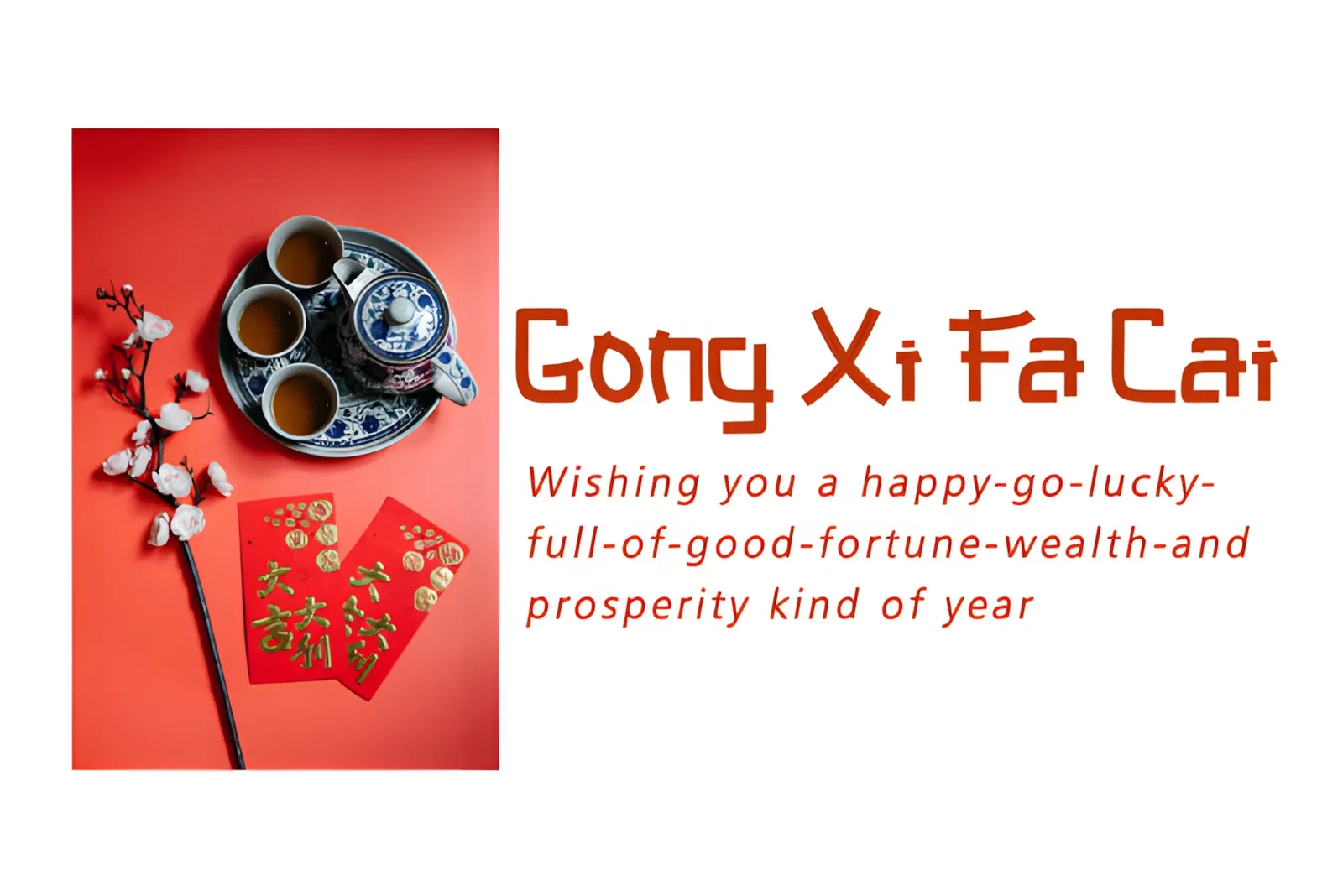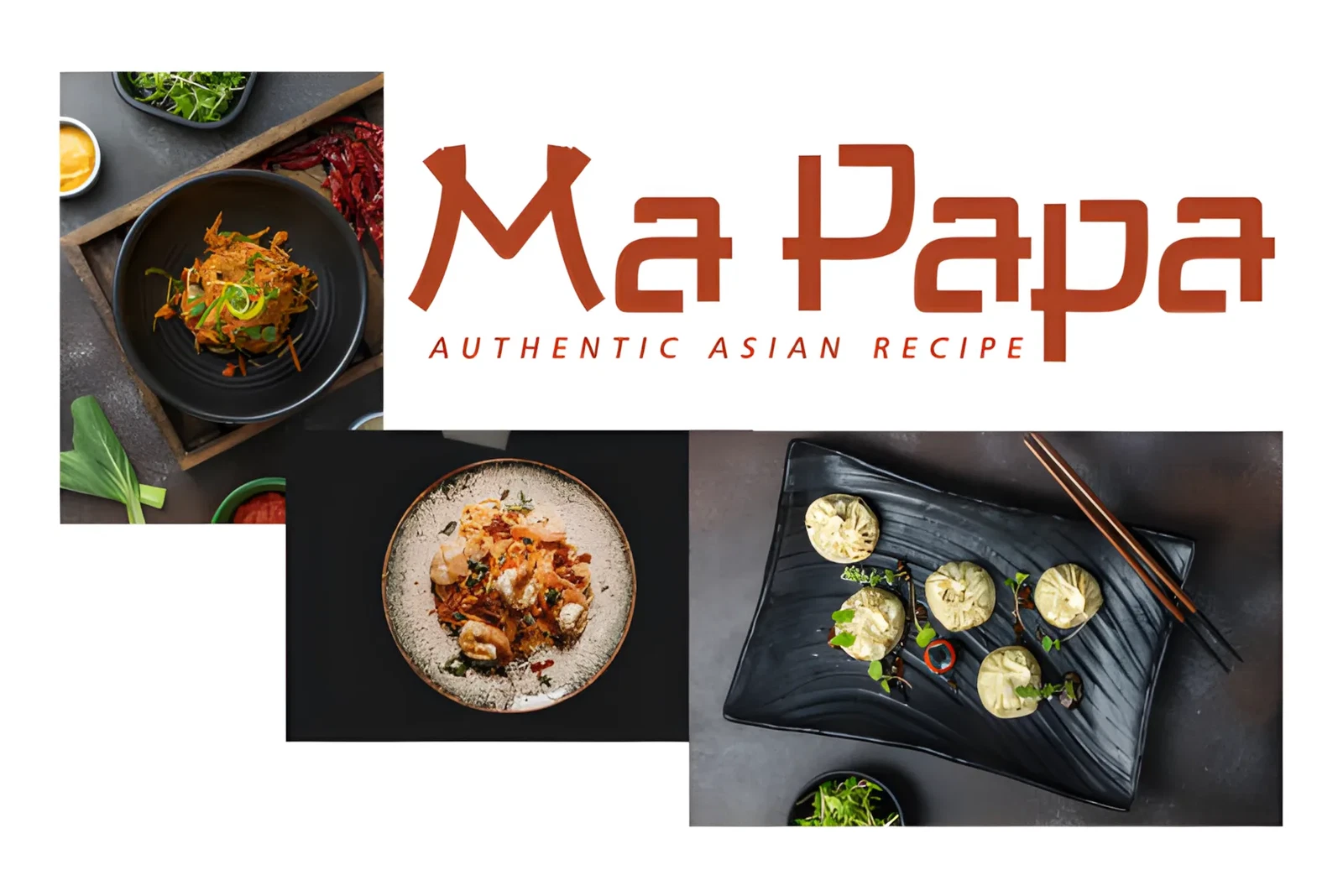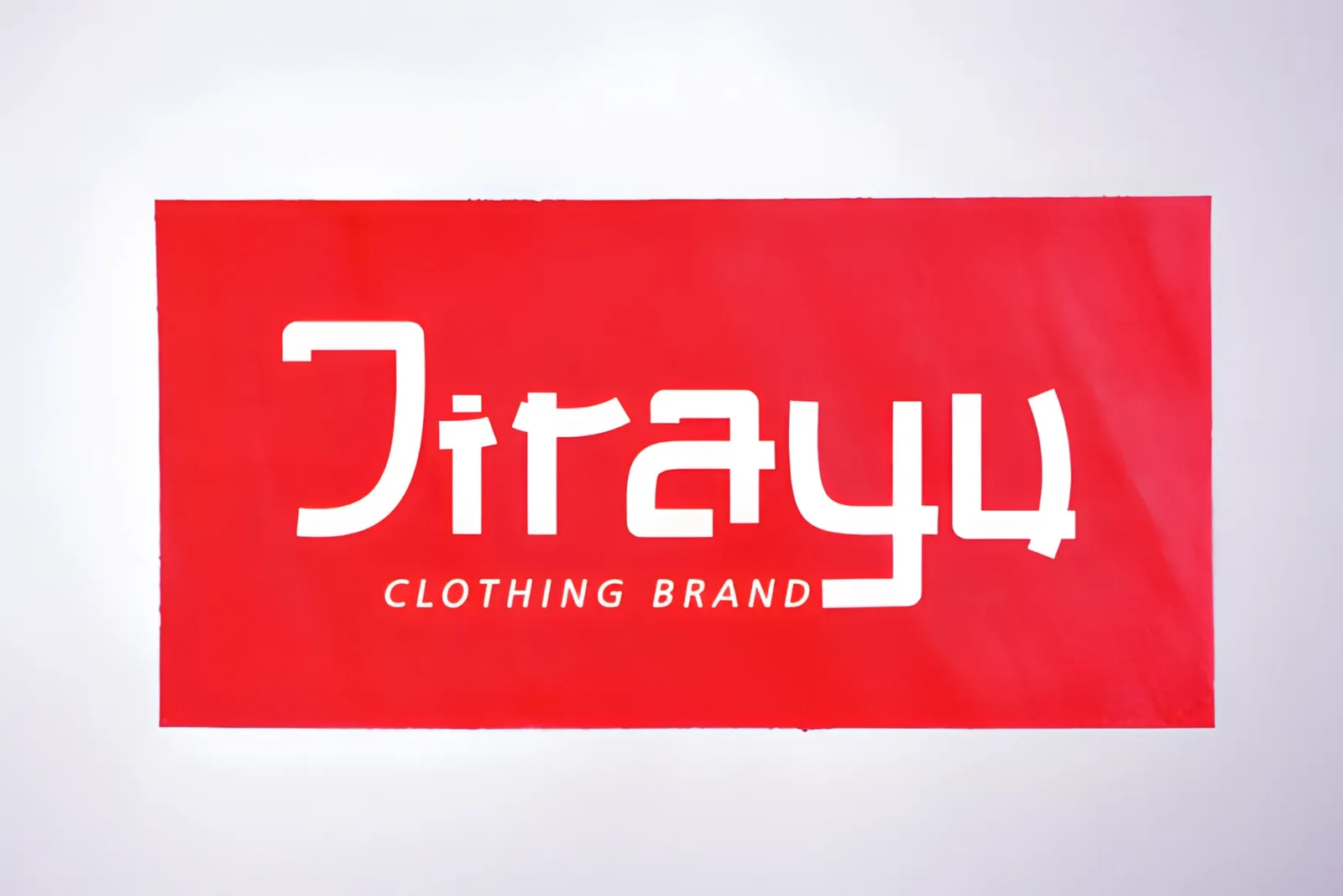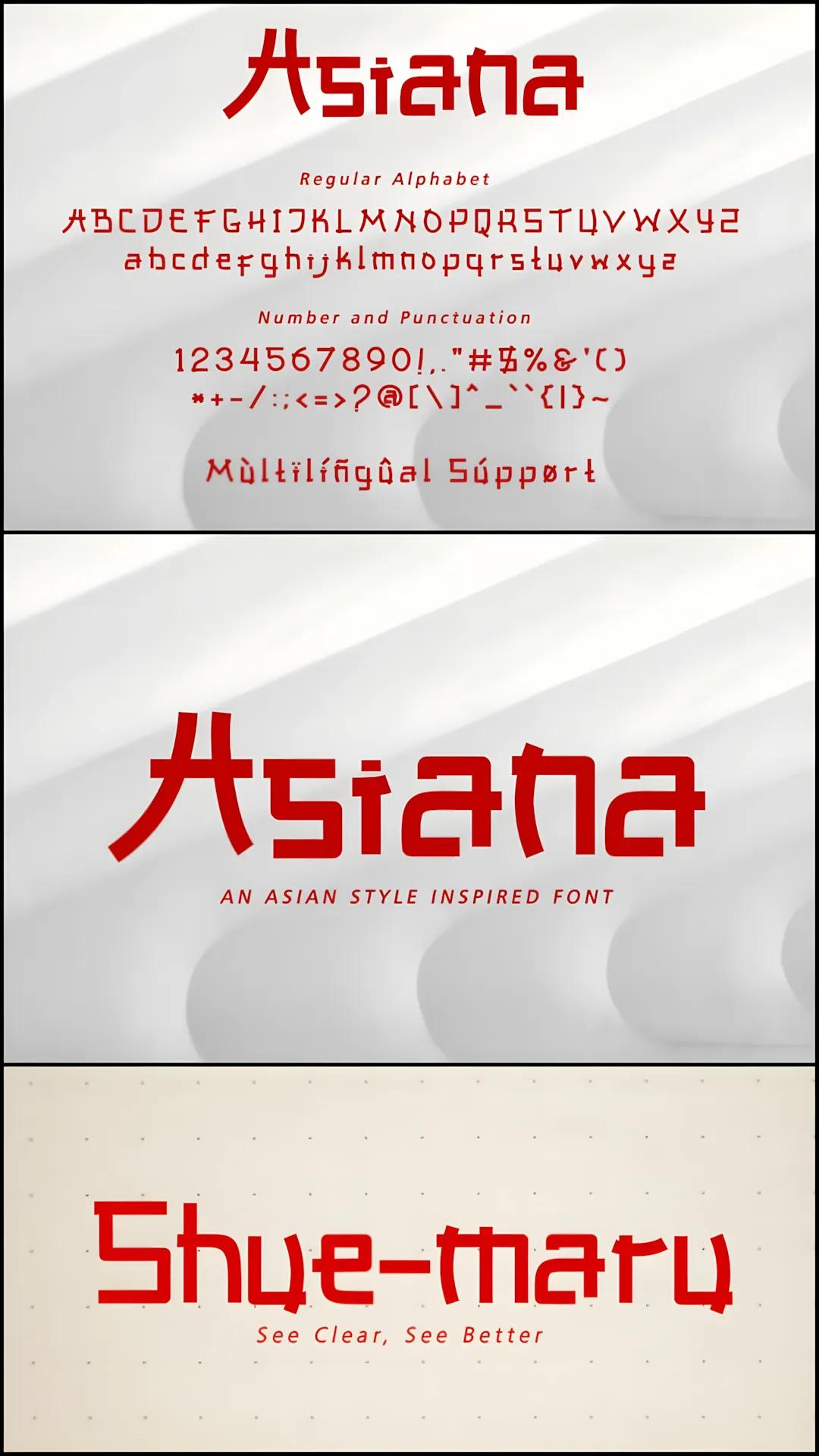
Typography can dramatically shape the personality of a project, and sometimes a font needs to carry cultural nuance, visual strength, and artistic flair all at once. The Asiana Font is a decorative display typeface inspired by Asian aesthetic influences, designed to bring bold character and vibrant style to creative work.
This font works beautifully in branding, posters, logos, and festive displays where designers want a visual identity that stands out and speaks with clarity. Whether for print or digital use, Asiana adds a cultural influence and modern decorative appeal to various design projects.
What Is Asiana Font?
Asiana Font is an Asian-style inspired display font featuring distinctive shapes and strong geometric forms that give it a modern, expressive look.
Unlike simple sans or serif fonts, this font infuses designs with personality rooted in cultural motifs, making it ideal for projects that aim to convey tradition blended with contemporary style. Its design reflects bold angular lines and a structure that feels both artistic and purposeful.
As a display typeface, Asiana is best suited for headlines, titles, branding elements, logos, and short bursts of text where visual impact matters most.
Visual Style and Unique Characteristics
The visual personality of Asiana Font combines bold geometry with cultural inspiration. Its characters often have:
- Strong, angular lines that create visual authority
- Geometric balance that supports bold visual messaging
- Cultural nuance that evokes Asian design influences
- Modern stylization that works in contemporary layouts
This combination makes the font versatile for both traditional themes and modern creative projects. The uppercase characters tend to be particularly eye-catching, while numbers and special glyphs are designed to harmonize with the overall aesthetic.
Best Uses for Asiana Font
Logo & Brand Identity Design
Asiana Font elevates brand identity projects by giving logos and mark designs a bold statement. Its Asian-inspired style works especially well for brands that want to communicate cultural richness alongside modern sensibility. Suitable applications include:
- Restaurants and culinary branding
- Cultural festivals and events
- Travel, tea houses, and luxury products
- Boutique and lifestyle brands
The visual strength of the font helps logos become instantly recognizable and memorable.
Posters, Banners & Event Graphics
In promotional design, typography must be both readable and expressive. Asiana Font’s bold letterforms ensure that headlines, event titles, and banners draw attention even from a distance. This makes it perfect for:
- Cultural holiday posters
- Event and festival banners
- Exhibition signage
- Promotional flyers and print materials
Paired with bold color contrast and minimalist graphics, Asiana creates a commanding visual presence.
Packaging & Product Design
Packaging design often needs a strong typographic personality that adds product appeal. Asiana Font brings character to labels, boxes, and merchandise design. It works beautifully on:
- Food and beverage packaging
- Specialty products with cultural themes
- Creative merchandise and souvenir items
By incorporating this typeface, brands can communicate visual uniqueness alongside product quality.
Digital Content & Social Media
In digital design, fonts need to perform well across screens and formats. Asiana Font’s bold display style ensures it remains prominent and engaging on:
- Website headers
- Social media banners
- Digital ads and promotional content
- E-commerce product visuals
Its cultural yet modern feel helps designs resonate with online audiences.
Advantages of Using Asiana Font
- Dynamic Asian-inspired decorative style that adds cultural depth
- Bold visual presence ideal for logos and headlines
- Versatile use cases across branding, print, and digital
- Creates standout visual identity in competitive design spaces
These benefits make Asiana Font a valuable choice for creatives who want decorative typography with both artistic and modern appeal.
Asiana Font is a bold, decorative display typeface that brings together modern design and Asian stylistic elements. It excels in projects where typography needs to be expressive, memorable, and culturally resonant. From branding and logos to posters and packaging, this font adds visual strength and character to creative work.
For designers seeking a decorative font with character and visual impact, Asiana Font offers a compelling typographic solution.